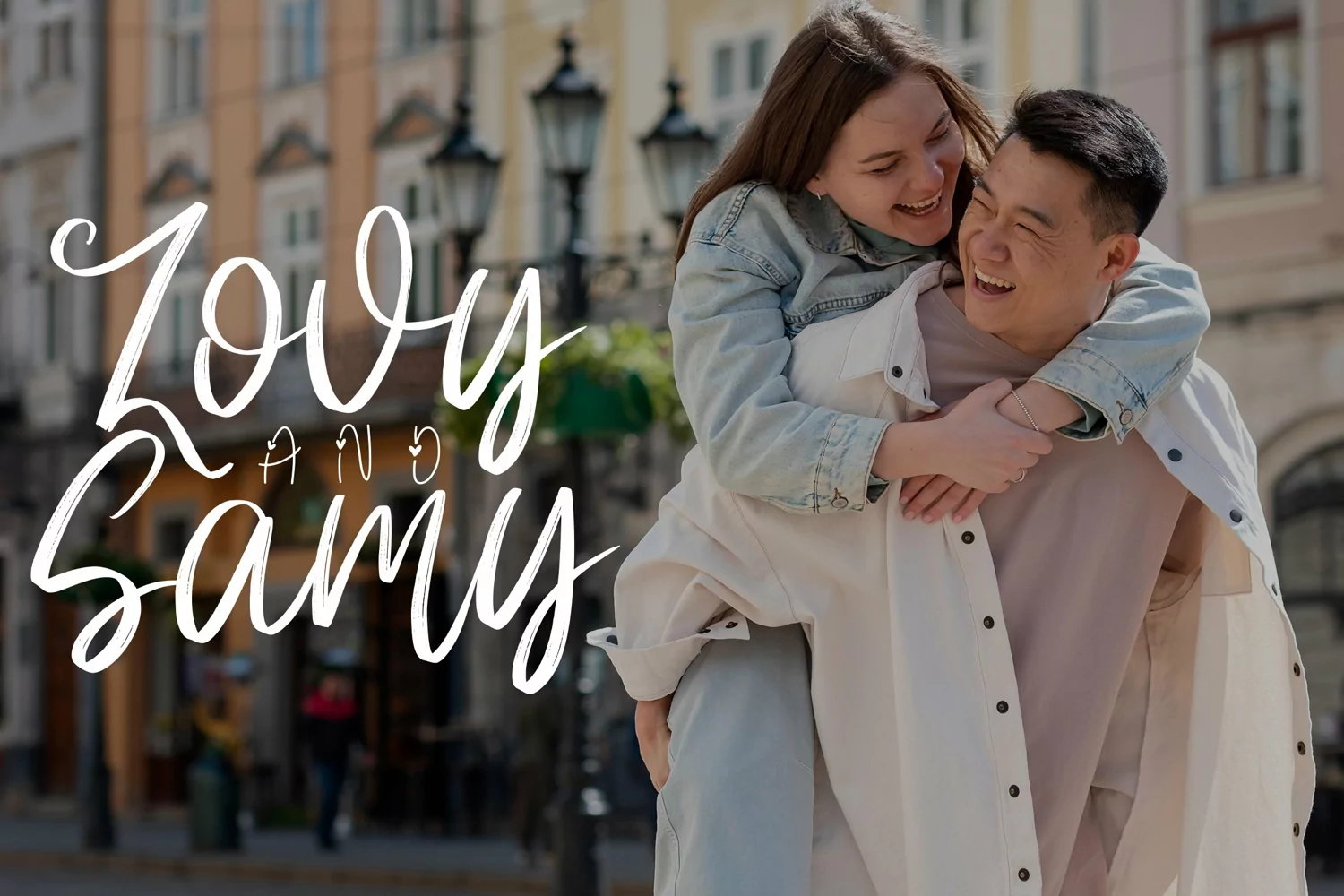
Louis Mate is a sweet and delicate handwritten font. Dainty and joyful, this font will be ideal for writing wedding invitations, cards or any other design that may need a romantic, personalized touch!
Louis Mate